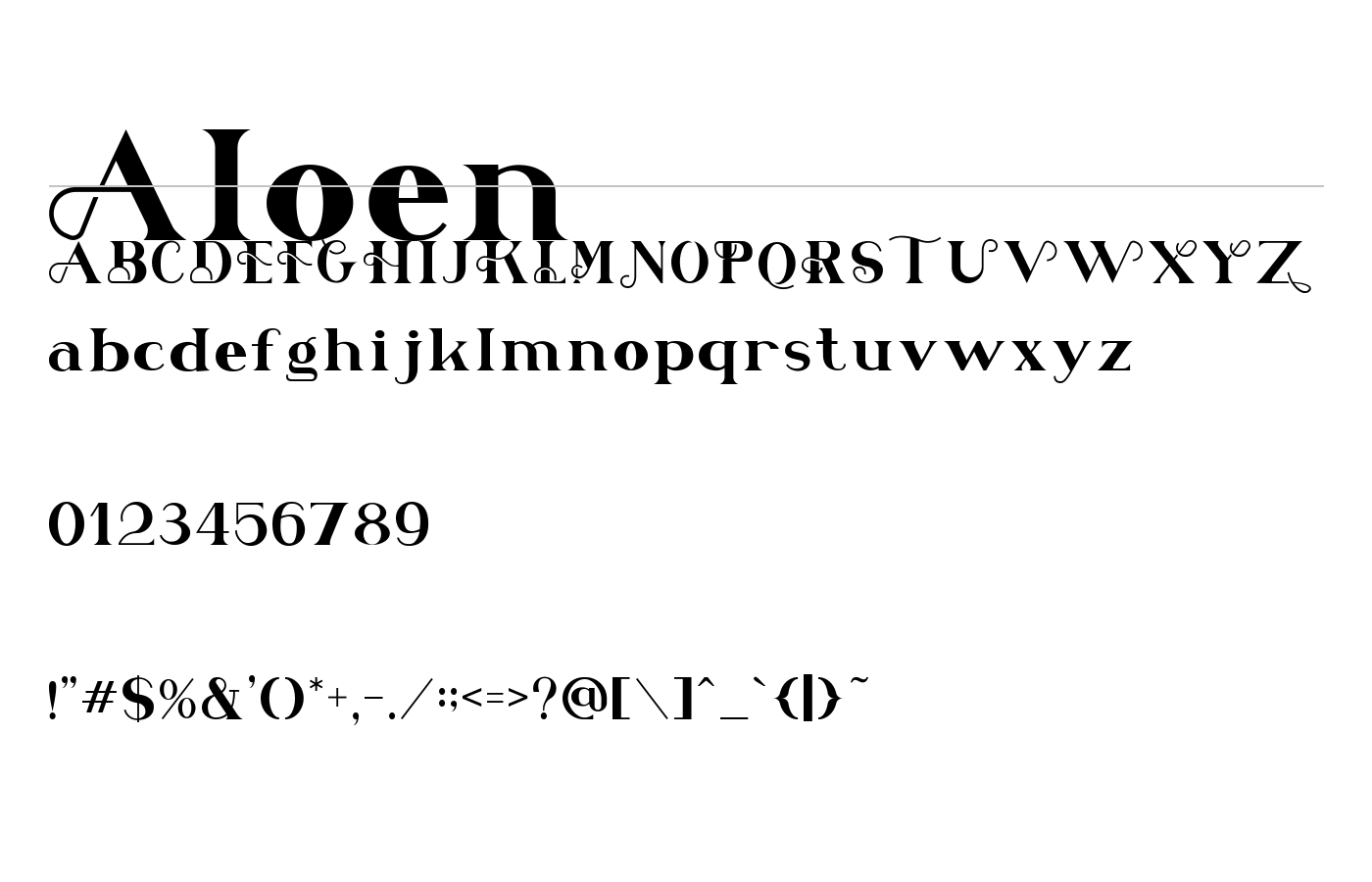
Aloen is a high-contrast serif font that blends classic elegance with artistic flair, featuring delicate, bracketed serifs and unique decorative flourishes on many uppercase letters. Its refined, bold strokes paired with a moderate x-height and sophisticated details make it ideal for luxury branding, editorial headlines, and stylish packaging where a touch of vintage charm and distinct character is desired. This font’s mix of traditional serif structure and creative embellishments lends a timeless yet expressive personality perfect for upscale and creative design projects.
Aloen Font
About Aloen Font